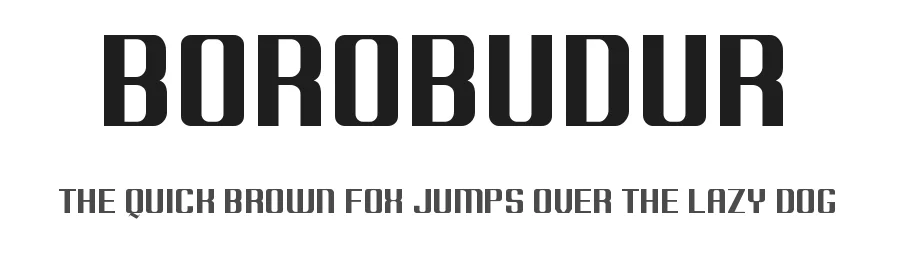
About Radio A Treqer Font
Radio A Treqer ships with 1 OpenType feature you can switch on in apps that support them (Illustrator, InDesign, Affinity, Figma, CSS font-feature-settings).
Radio A Treqer supports 222 languages.
Radio A Treqer Font is a versatile sans-serif font that works for both headings and body text. Pair it with a contrasting serif or slab serif font to add visual interest and a clear distinction between titles and body copy.